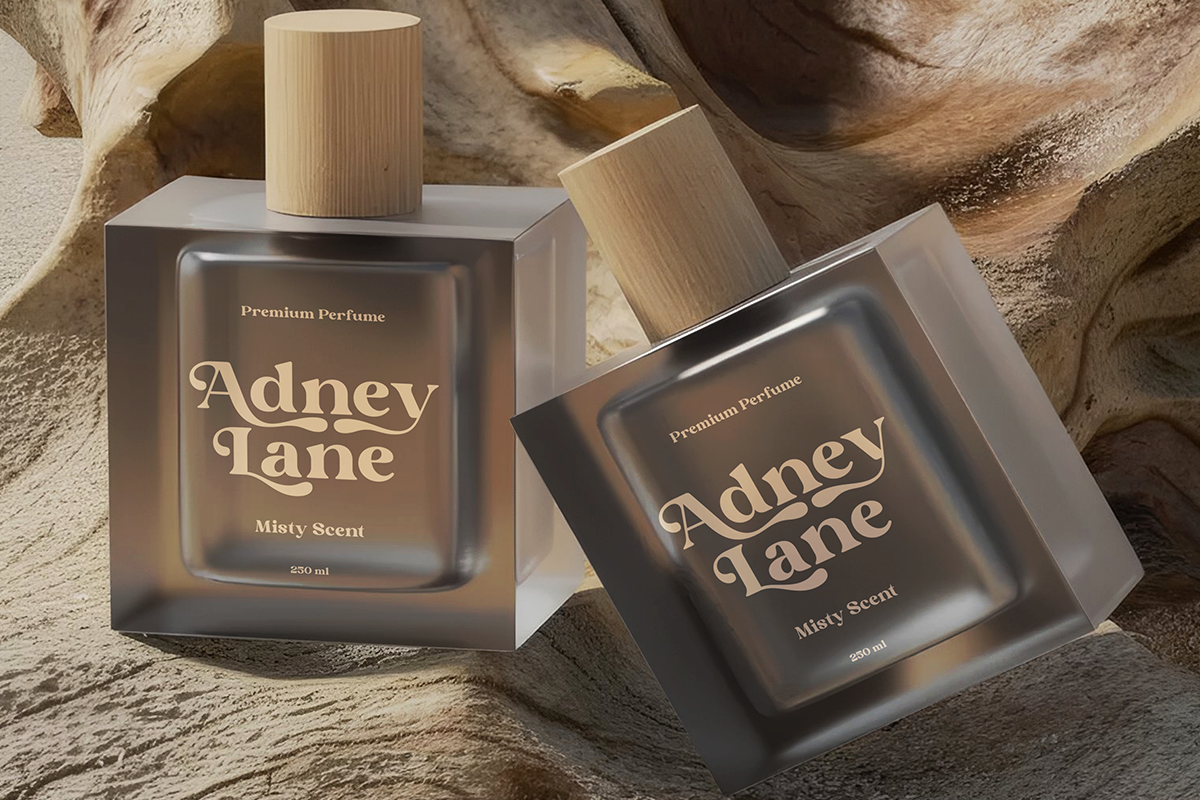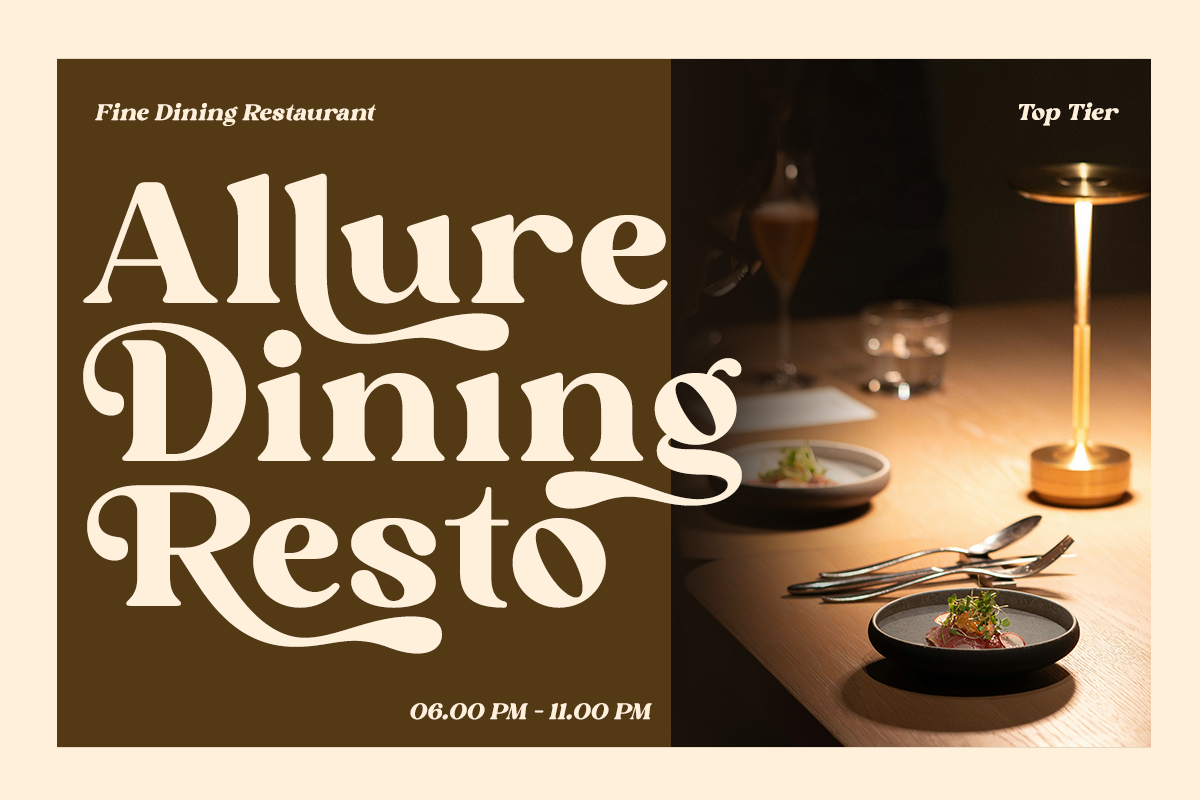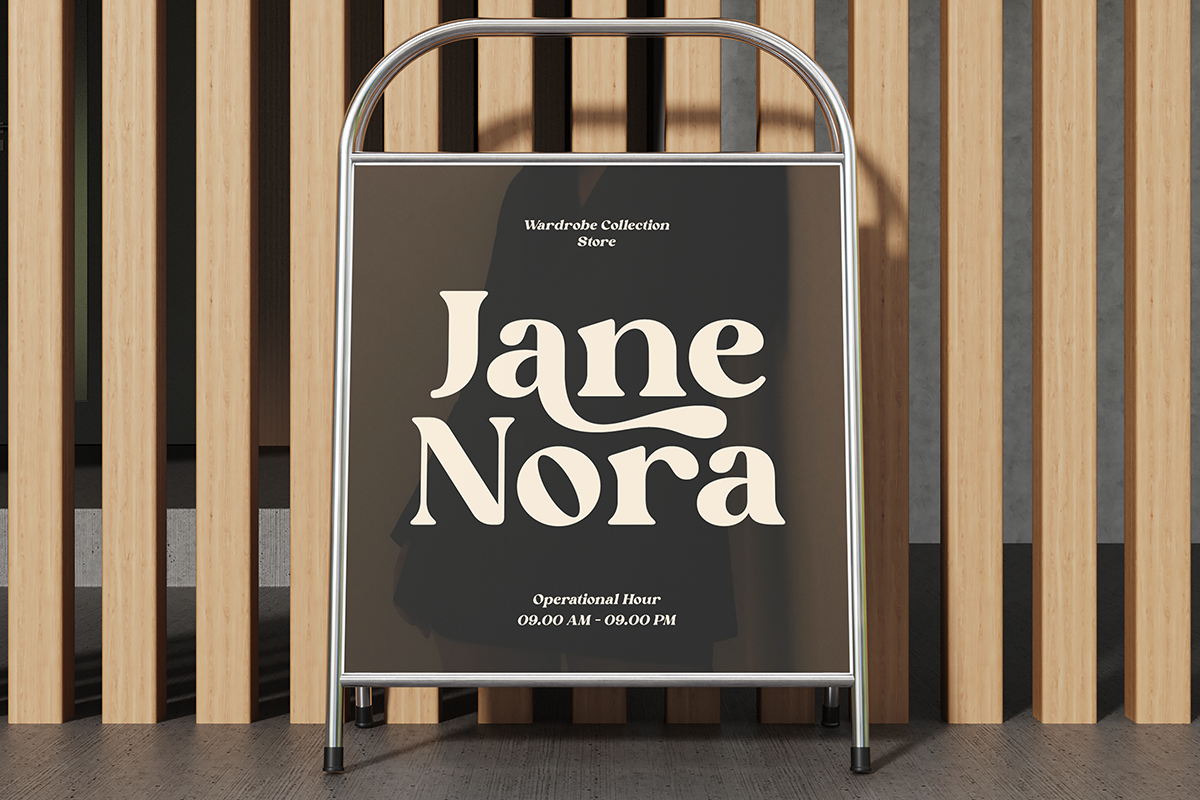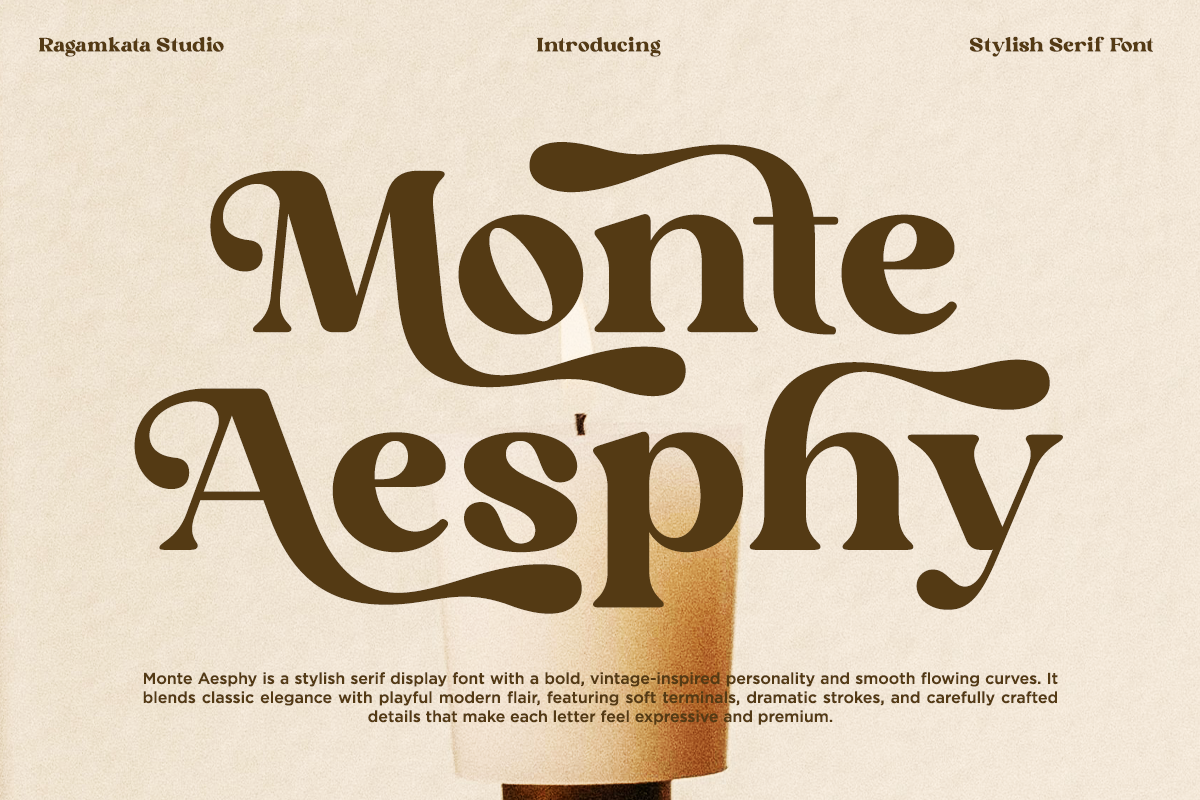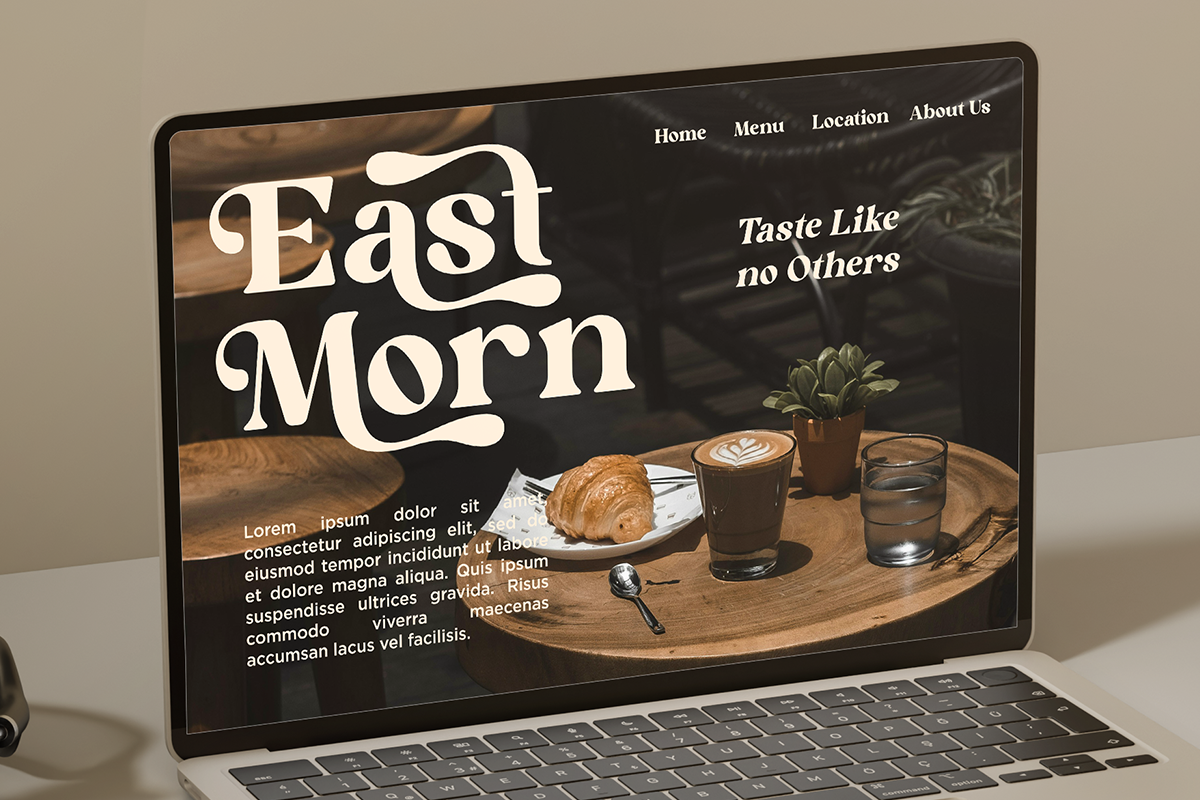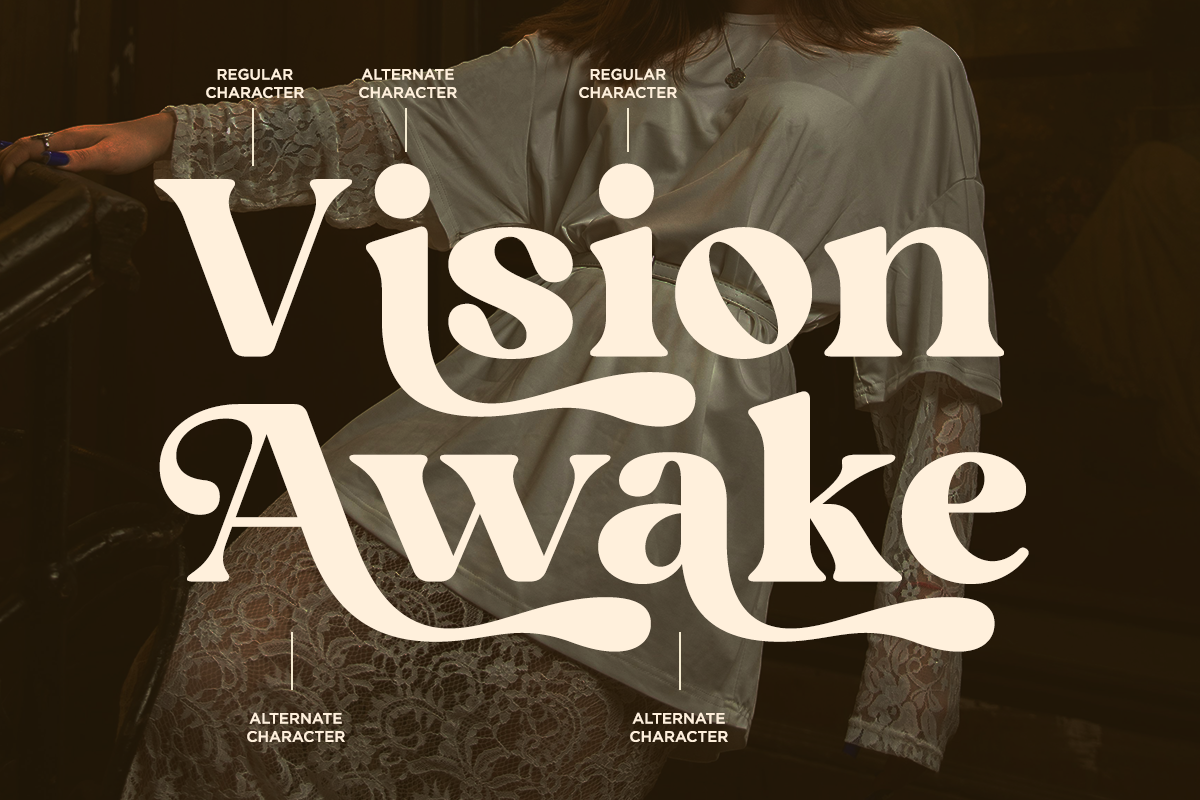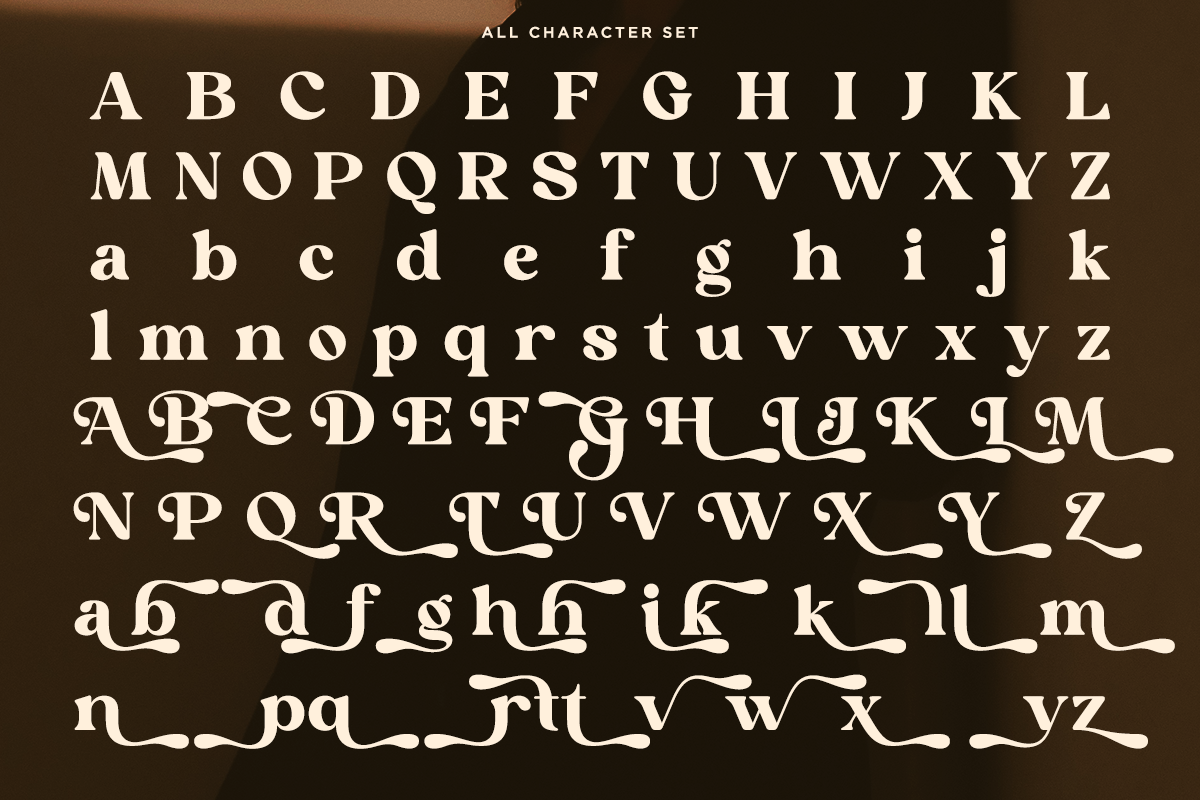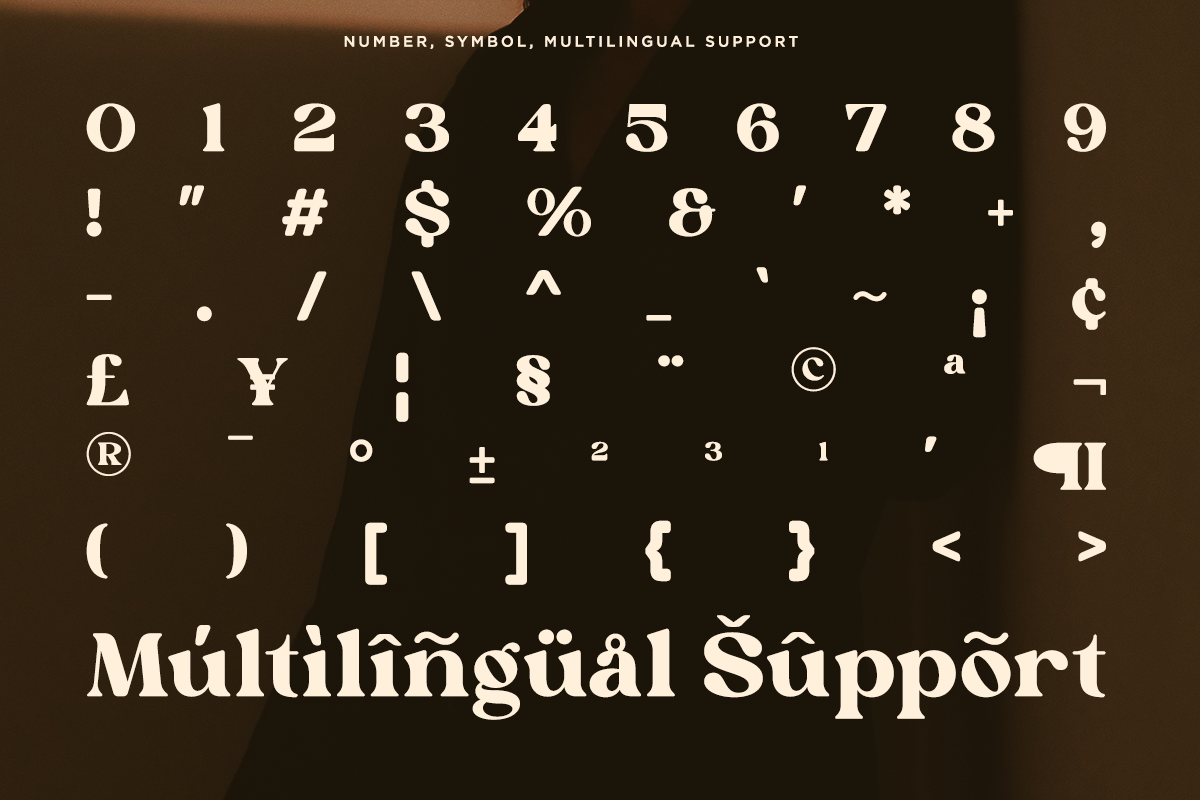
Monte Aesphy – Stylish Serif Font
Monte Aesphy is a stylish serif font that blends bold vintage inspiration with modern elegance. Designed with smooth flowing curves, dramatic strokes, and soft terminal details, this typeface brings a refined yet playful personality to any design. Each letter is carefully crafted to feel expressive, luxurious, and timeless, making Monte Aesphy perfect for standout typography that demands attention. Perfect for branding, logos, luxury packaging, fashion labels, editorial design, magazine headlines, posters, book covers, wedding invitations, quotes, social media graphics, product packaging, café or restaurant branding, vintage-inspired designs, premium marketing materials
- Stylish Alternate set ( Uppercase & Lowercase )